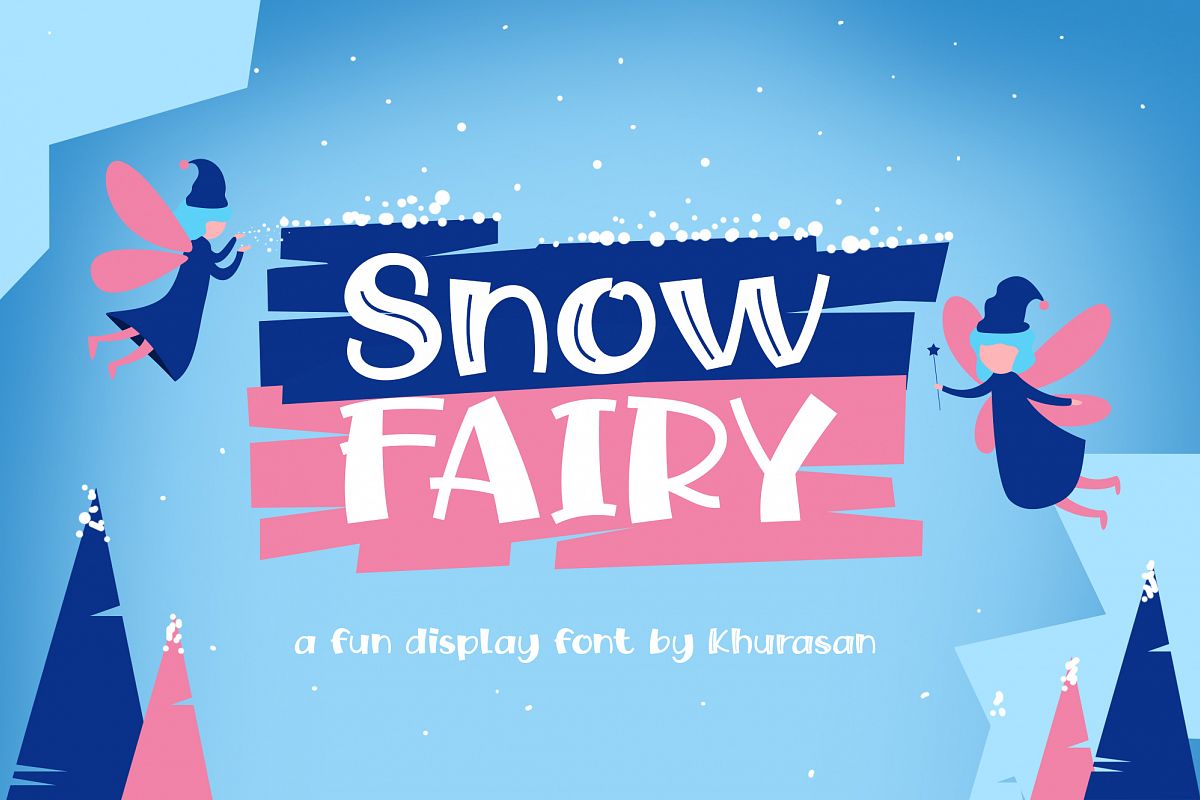
Snow Fairy
Introducing. The Snow Fairy font a display typeface awesome character with 2 different style. The Snow Fairy font it’s perfect for namecard, poster, logo, magazine, cover, banner, tshirt and headers, or even large-scale artwork.